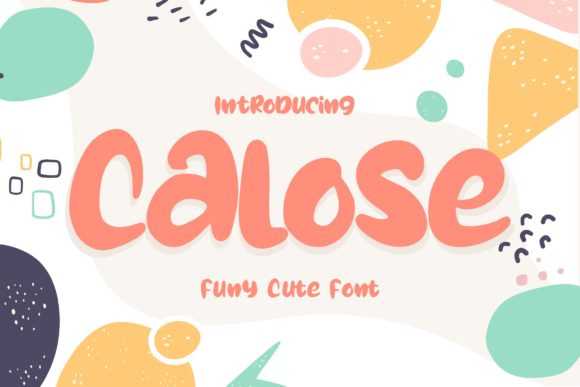
Discover the Charm of Calose Font: Elevate Your Designs with a Cute and Quirky Display Font
Are you tired of using the same old fonts in your designs? Look no further than Calose Font, a delightful and quirky display font that’s sure to add a touch of personality to your creative projects. With its friendly feel and versatile nature, Calose is the perfect addition to your font collection, suitable for a wide range of contexts and applications.
The Unique Character of Calose Font
Calose Font stands out from the crowd with its unique blend of playfulness and charm. Its cute and quirky design makes it an excellent choice for projects that require a bit of whimsy, such as children’s books, greeting cards, and social media graphics. However, its friendly feel also ensures that it can be used in more formal contexts, like branding, packaging, and advertising, without appearing too juvenile or out of place.
What Makes Calose Font So Versatile?
So, what makes Calose Font so versatile? The answer lies in its carefully crafted design, which strikes the perfect balance between playfulness and sophistication. Here are just a few reasons why Calose Font is an excellent addition to your design toolkit:
- Wide range of applications: Calose Font is suitable for use in a variety of contexts, from digital designs like social media graphics and website headers to print materials like brochures, posters, and business cards.
- Easy to read: Despite its quirky design, Calose Font is incredibly easy to read, making it perfect for use in body text, headings, and titles.
- Customizable: Calose Font comes in a range of styles and weights, allowing you to tailor it to your specific design needs and preferences.
How to Use Calose Font in Your Designs
Now that you’re eager to get started with Calose Font, here are a few tips on how to make the most of this amazing display font:
- Pair it with contrasting fonts: Combine Calose Font with a clean, sans-serif font to create a striking contrast that adds visual interest to your designs.
- Experiment with colors: Calose Font looks great in a range of colors, from bold and bright to pastel and subtle. Don’t be afraid to try out different color combinations to find the one that works best for your design.
- Play with textures and patterns: Add an extra layer of depth and interest to your designs by combining Calose Font with textures and patterns.
Why Designers and Crafters Love Calose Font
Calose Font has quickly become a favorite among designers and crafters, and it’s easy to see why. Here are just a few reasons why this font has captured the hearts of creatives around the world:
- Unique and eye-catching: Calose Font is a breath of fresh air in a world of generic, overused fonts. Its quirky design ensures that your designs will stand out from the crowd and grab attention.
- Easy to use: Calose Font is incredibly easy to use, even for those with limited design experience. Its clean lines and simple design make it a joy to work with.
- Constantly updated: The team behind Calose Font is committed to continually updating and improving the font, ensuring that it stays relevant and fresh.
In conclusion, Calose Font is a game-changer for designers and crafters looking to add a touch of personality and whimsy to their creative projects. Its unique blend of playfulness and sophistication makes it an incredibly versatile font, suitable for a wide range of contexts and applications. Whether you’re working on a children’s book, a branding campaign, or a social media graphic, Calose Font is sure to elevate your design and make it stand out from the crowd.